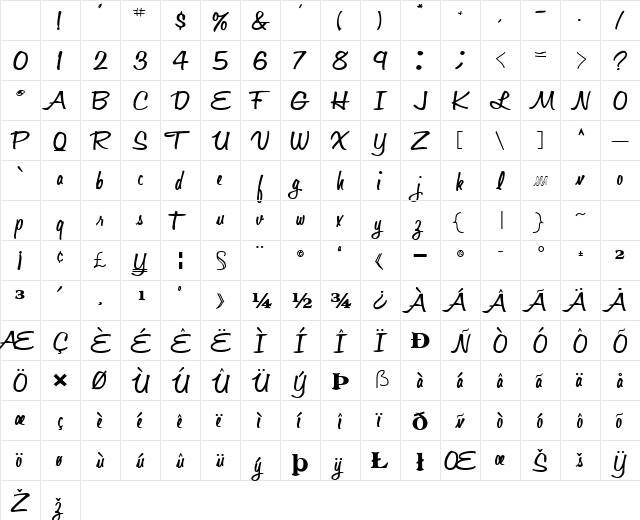
Complete PositiveNew45 Bold glyph index. Displaying only characters natively supported by PositiveNew45 Bold font.
PositiveNew45 is a composed and adaptable typeface that performs quietly and consistently across a wide range of design contexts. Its bold stroke weight gives it real presence on the page.